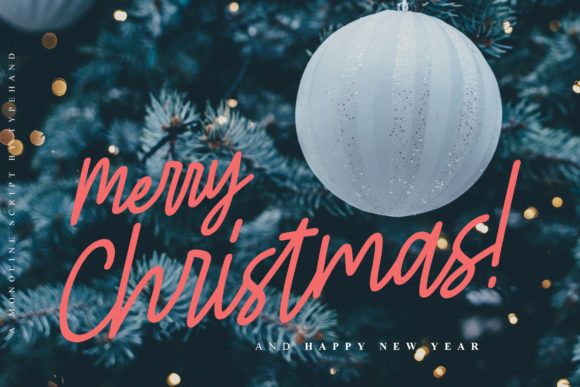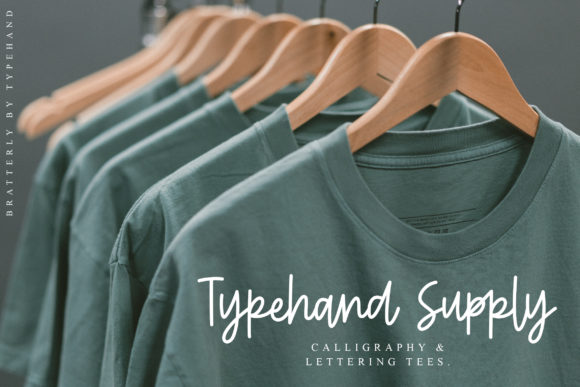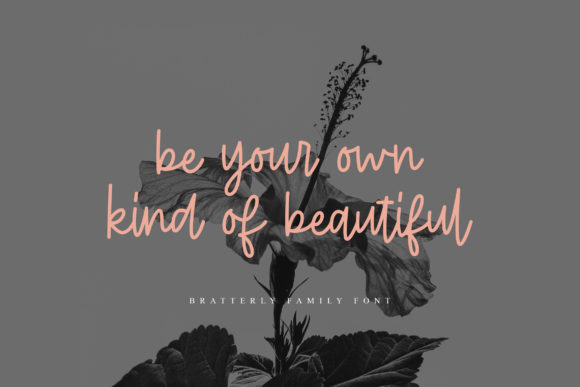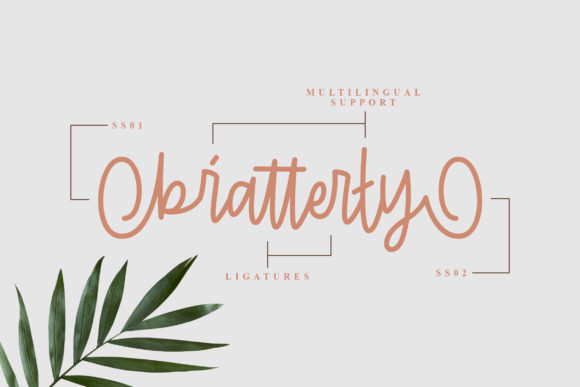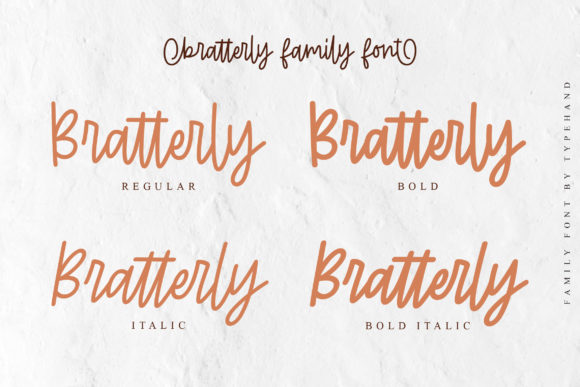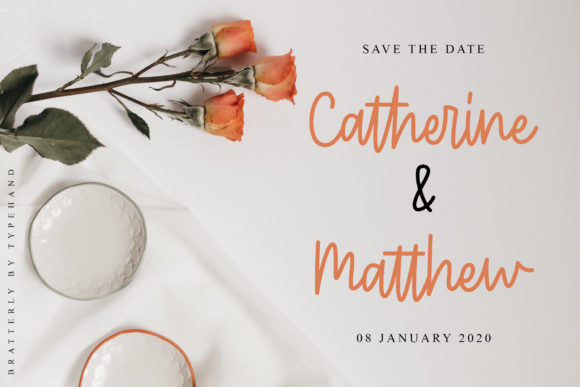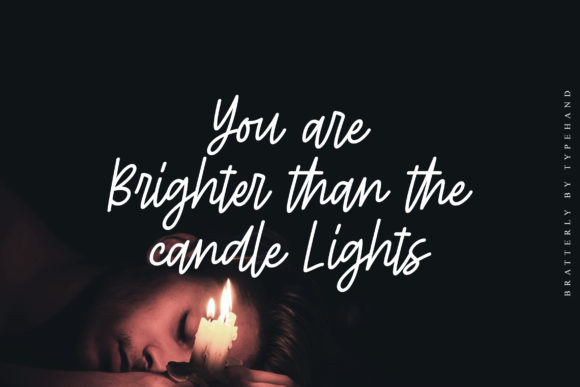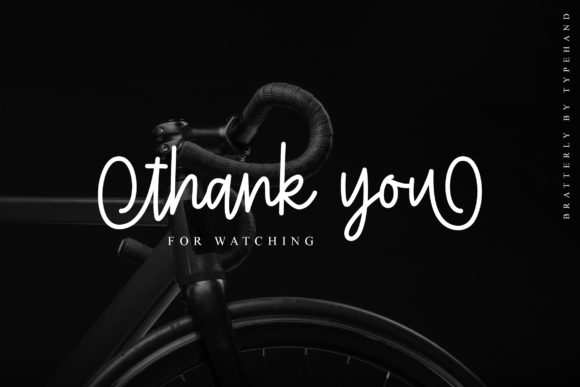
Bratterly Font
About Bratterly Font
Bratterly is a beautiful and simple script that radiates authenticity. Get inspired by its unique look, and turn any design idea into a true standout!